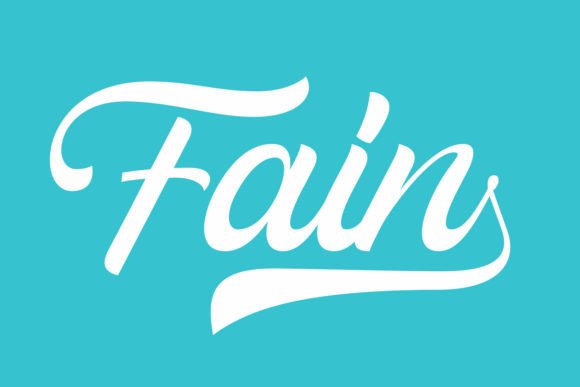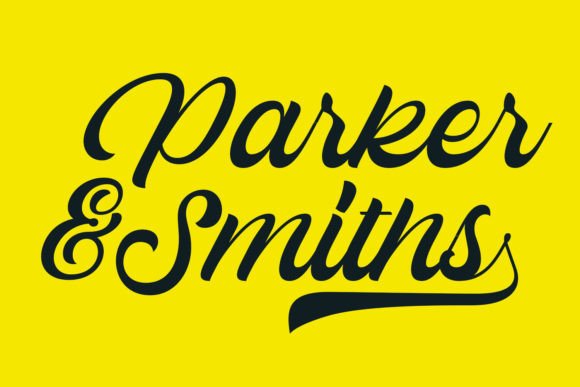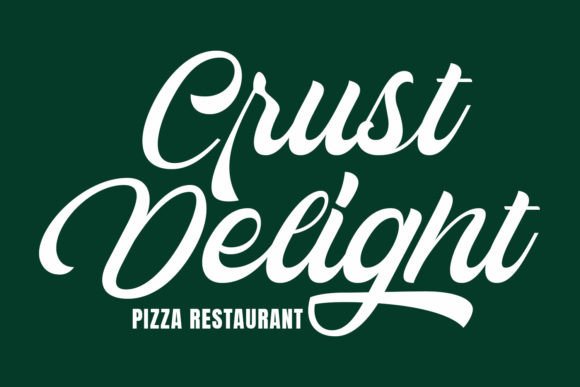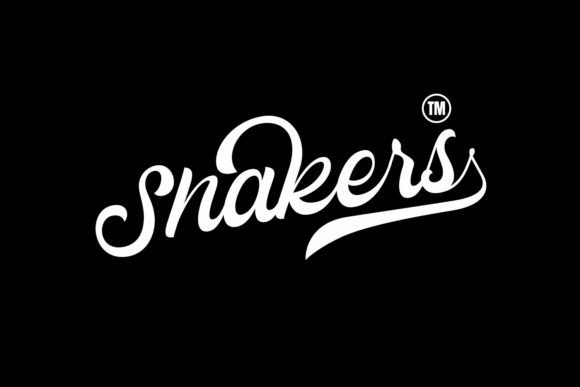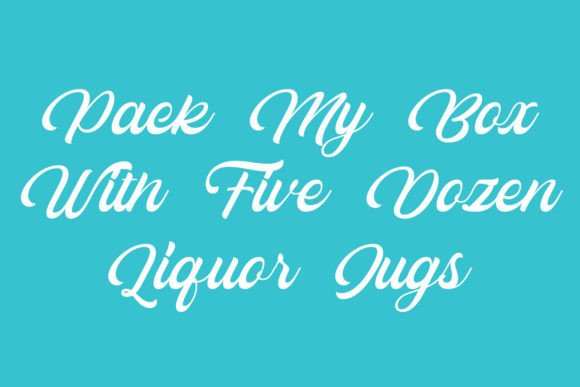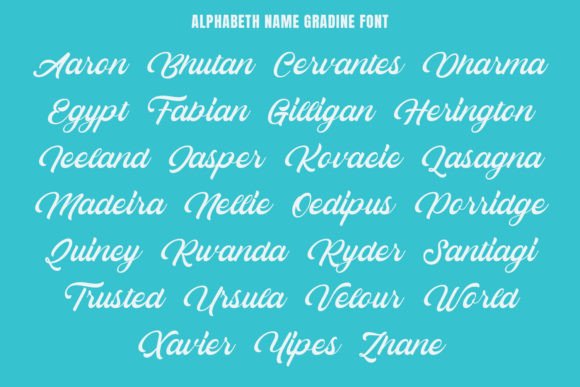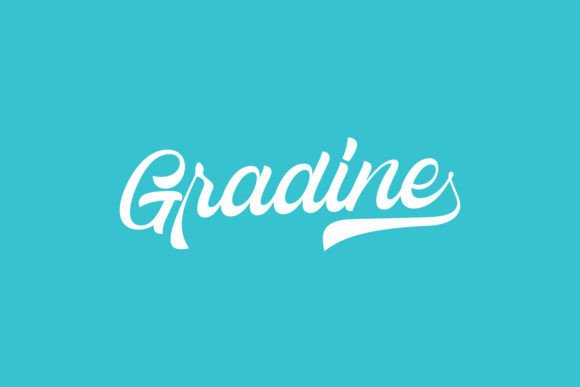
Introducing Gradine Font: Elevate Your Designs with Elegance and Sophistication
Are you looking for a font that exudes elegance and refinement? Look no further than Gradine Script, a beautiful and sophisticated script font that is sure to elevate any design project. With its fluid and dynamic strokes, Gradine Font brings a sense of style and grace to a wide range of creative works, making it perfect for designers and crafters who want to add a touch of luxury to their designs.
The Characteristics of Gradine Script
Gradine Script is a stunning script font that boasts a range of characteristics that make it stand out from the crowd. Its fluid strokes and dynamic connections give it a sense of movement and energy, while its elegant letterforms and refined lines evoke a sense of sophistication and luxury. Whether you’re designing a logo, creating a social media graphic, or crafting a beautiful wedding invitation, Gradine Script is the perfect choice.
What Makes Gradine Font So Versatile?
One of the things that sets Gradine Script apart from other script fonts is its versatility. This font can be used in a wide range of design projects, from formal and elegant to playful and whimsical. Its fluid strokes and dynamic connections make it perfect for designs that require a sense of movement and energy, while its elegant letterforms and refined lines make it suitable for more formal and sophisticated designs.
Perfect for a Range of Design Projects
Gradine Script is perfect for a wide range of design projects, including:
- Logos and branding: Add a touch of elegance and sophistication to your logo and branding with Gradine Script.
- Wedding invitations and stationery: Create beautiful and elegant wedding invitations and stationery with Gradine Script.
- Social media graphics: Elevate your social media graphics with Gradine Script’s fluid and dynamic strokes.
- Packaging and product design: Add a touch of luxury to your packaging and product design with Gradine Script.
Tips for Using Gradine Font
Here are a few tips for using Gradine Script in your design projects:
- Use it sparingly: Gradine Script is a elegant and sophisticated font, so use it sparingly to add a touch of luxury to your designs.
- Experiment with different colors: Gradine Script looks stunning in a range of colors, from classic black and white to bold and bright hues.
- Pair it with other fonts: Gradine Script pairs beautifully with other fonts, such as sans-serif fonts and serif fonts.
Why Choose Gradine Font?
So why choose Gradine Script for your design projects? Here are just a few reasons:
- Elegance and sophistication: Gradine Script brings a sense of elegance and sophistication to any design project.
- Versatility: Gradine Script can be used in a wide range of design projects, from formal and elegant to playful and whimsical.
- Unique and stylish: Gradine Script is a unique and stylish font that will set your designs apart from the crowd.
In conclusion, Gradine Script is a beautiful and sophisticated script font that is perfect for designers and crafters who want to add a touch of elegance and refinement to their designs. With its fluid and dynamic strokes, Gradine Font brings a sense of style and grace to a wide range of creative works. Whether you’re designing a logo, creating a social media graphic, or crafting a beautiful wedding invitation, Gradine Script is the perfect choice.